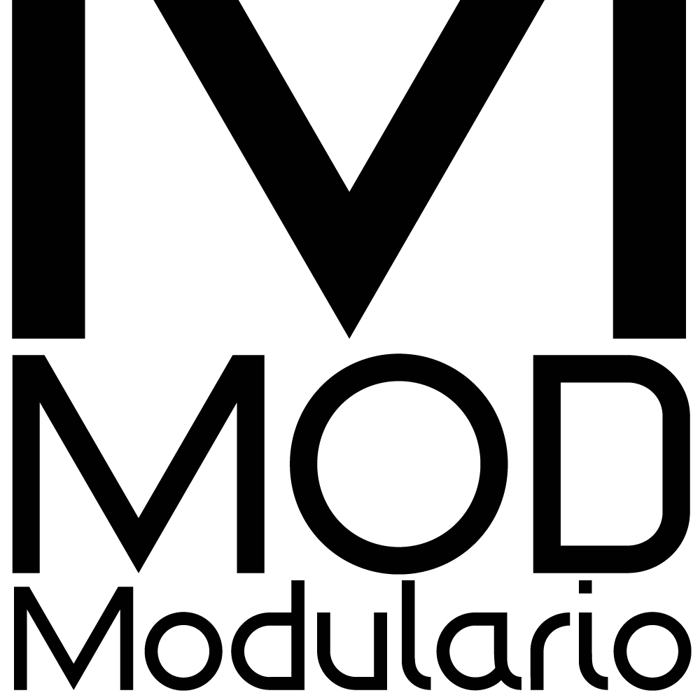
Modulario Font
Modulario is a distinctive geometric sans with a dignified, Roman-inspired uppercase designed for clarity. The influence of handwriting can be detected in a lowercase which includes a uniquely scripty s.